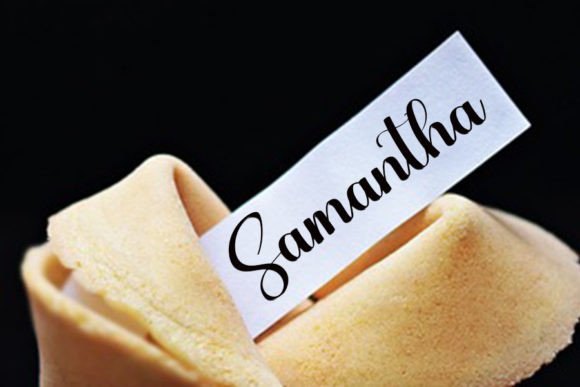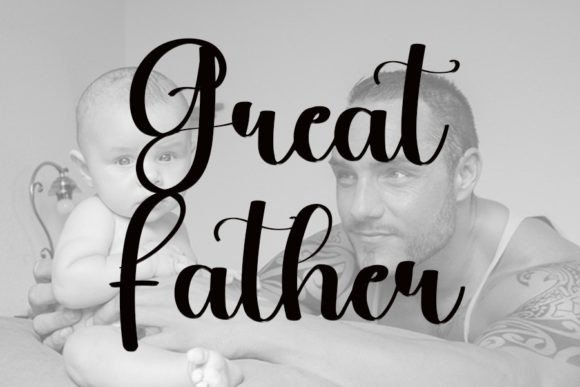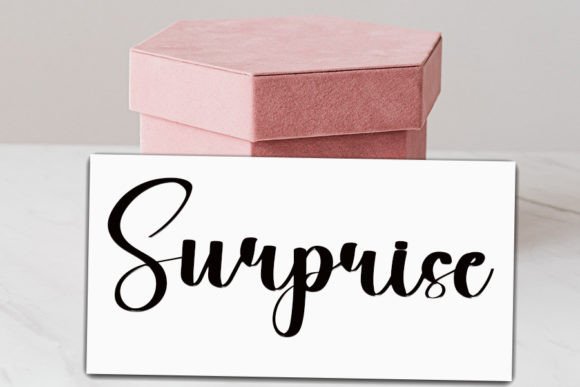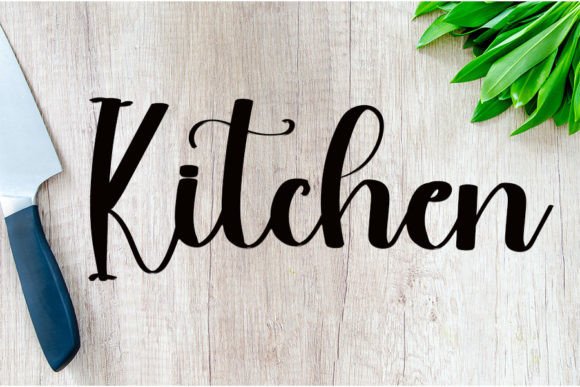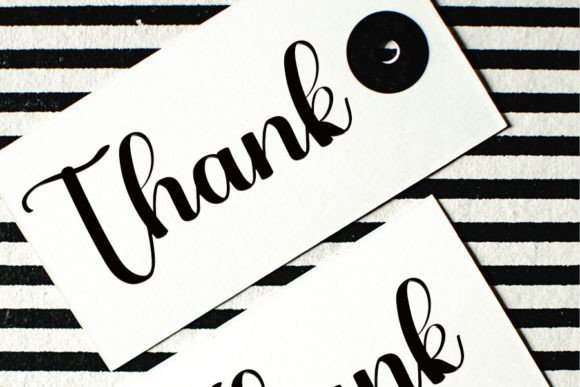
Simple House Font
About Simple House Font
Simple House is a cool handwritten font with a modern vibe and spotless form, inspired by classic calligraphy. Not too thin and not too thick, balanced and varied, this font was designed to enhance the beauty of your projects.